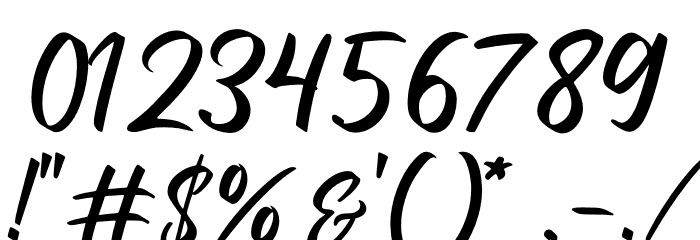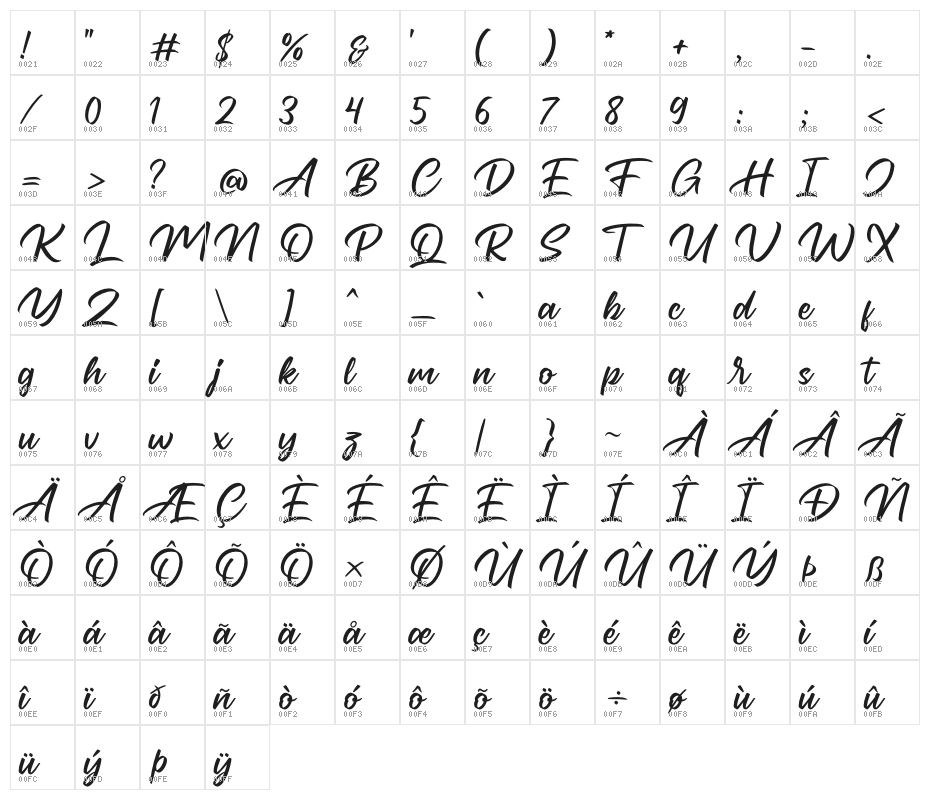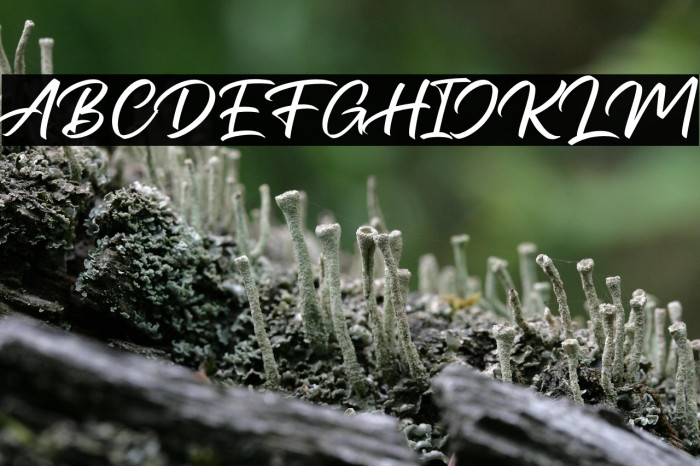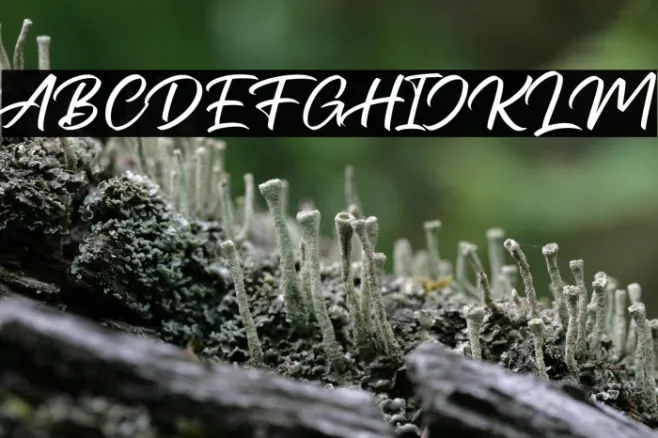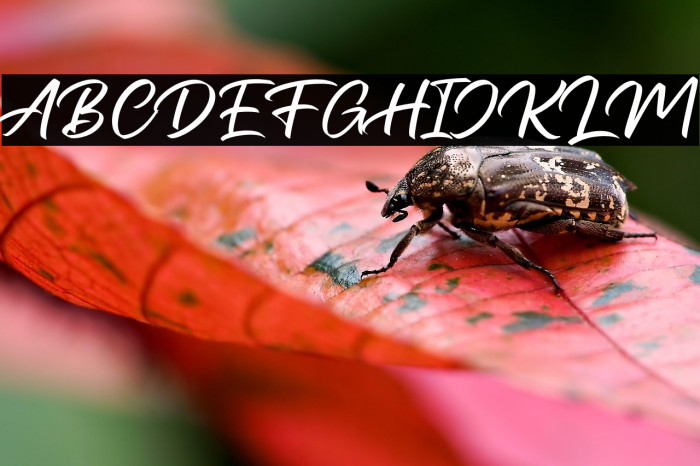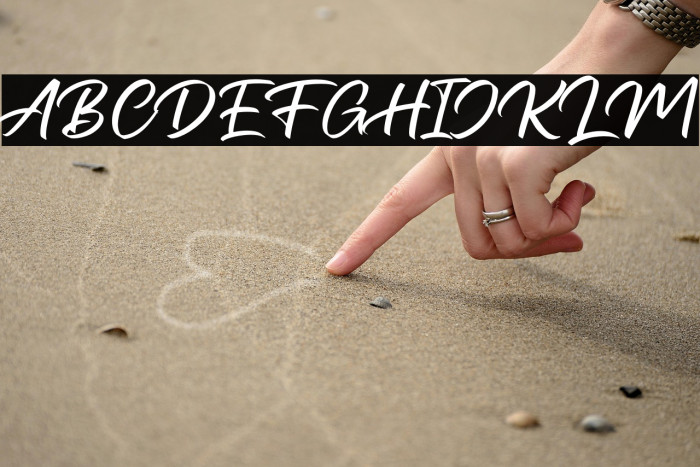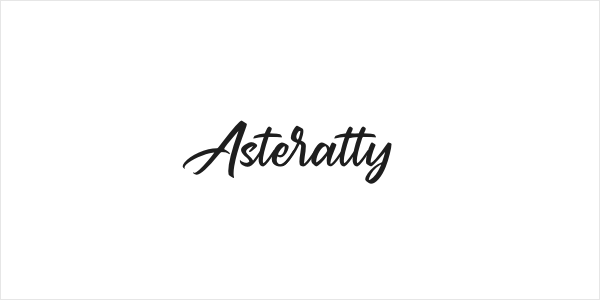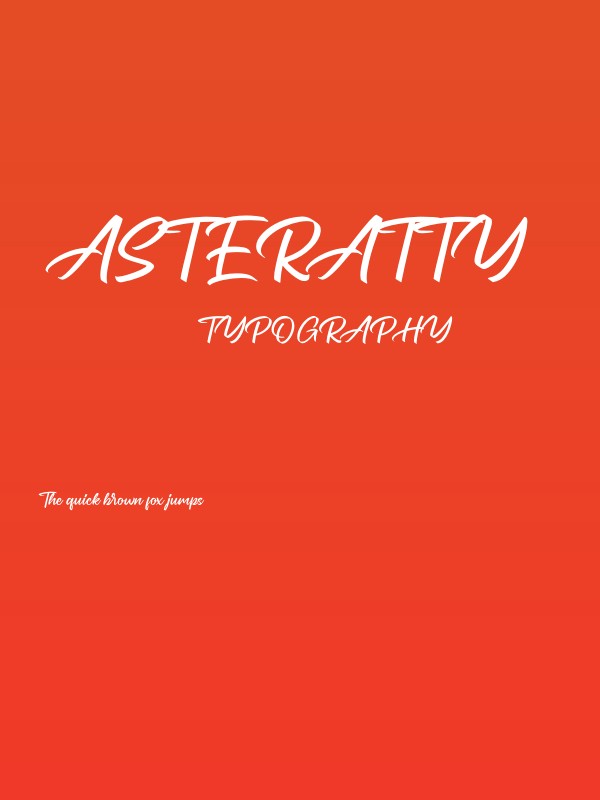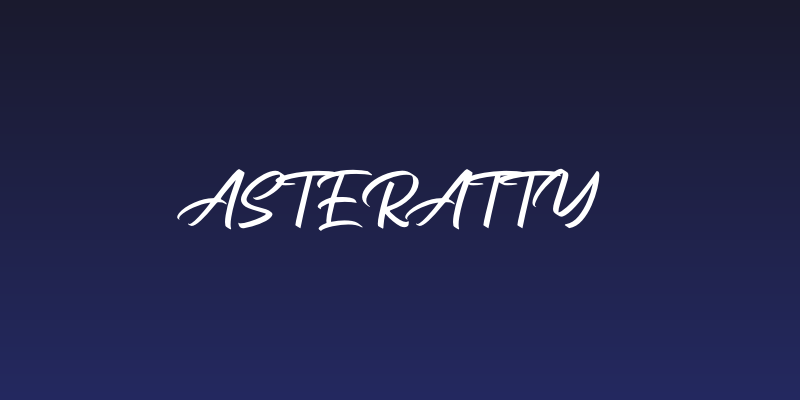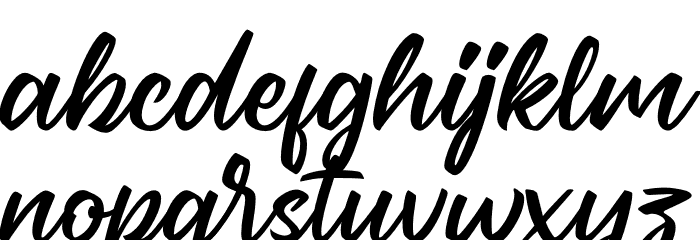
Asteratty Font
Asteratty Description
This font features a dynamic and expressive script style, characterized by fluid, cursive strokes that convey a sense of elegance and movement. The uppercase letters are bold and slightly slanted, with a consistent flow that connects each character seamlessly. The lowercase letters maintain a similar style, with rounded forms and smooth transitions between strokes. The numerals are distinct and maintain the cursive theme, adding a playful yet sophisticated touch. Special characters are creatively integrated, enhancing the font's versatility. This font is ideal for projects that require a personal and artistic touch, such as invitations, branding, and creative designs.
| Proposed Projects | Ideal for invitations, branding, creative designs, and artistic projects. |